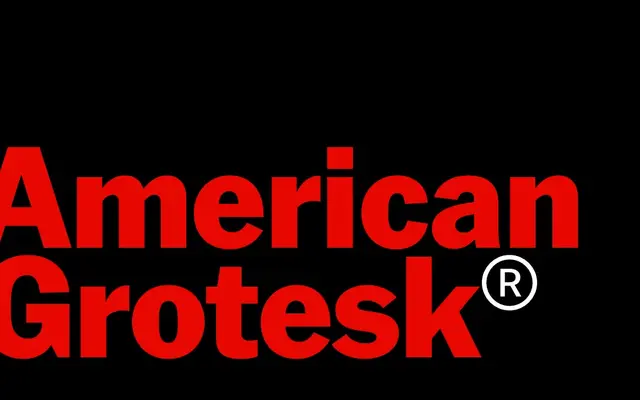
American Grotesk
Klim Type Foundry · Kris Sowersby · 2024
A reprisal of Franklin Gothic by Kris Sowersby, leaning into American vernacular grotesques for editorial and persuasive work.
A grotesque sans by Kris Sowersby that reworks Franklin Gothic, the typeface Klim describe as a fixture of American graphic vernacular and persuasive communication. Fourteen styles run across seven weights from Thin to Black with matching italics, and the family extends into American Grotesk Condensed and American Grotesk Compressed for tighter measures and posters. Sits in editorial, campaign and identity work where you want the warmth and rhythm of Franklin without its dated contours.
Klim classifies it as Lineal: Grotesque; a reprisal of Franklin Gothic, framed as a key part of American graphic vernacular history, particularly persuasive communication, drawn at a moment of contested authorship and authenticity.